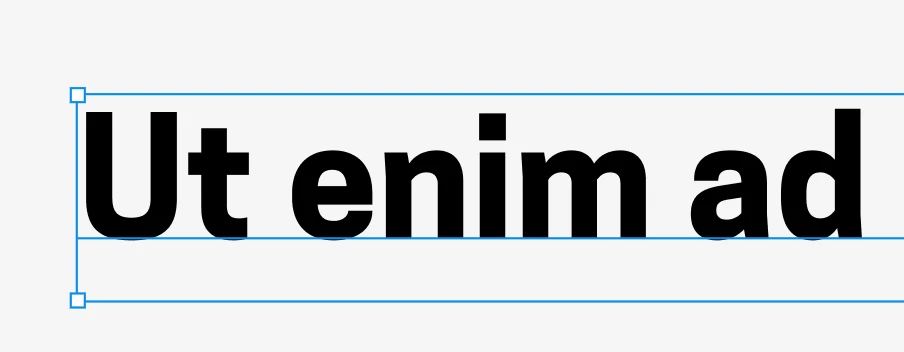
New font, different vertical metrics - how would you handle it?
I’m working on an app where at the last minute the font was changed. It was easy to swap… only the new font (Cooper Hewitt) has a wildly different vertical placement in the bounding box. See how it aligns close to the top:
For the app launch for dev this was a relatively easy solve, as you can adjust the vertical alignment. But moving forward with the project I could really do with the Figma designs not all looking misaligned!
Vertical trim seems the only option. But the paddings within my components were based off of the previous untrimmed font. Which means I would need new spacing measurements, which is bad as then the devs would need to redo all those, or ignore my new measurements. Not great outcomes for a continuing project.
I’ve been considering using a font editor to manually adjust the vertical metrics solely for use in Figma. I don’t know whether that’s legal or possible!
Has anyone had a similar experience? Or do you guys have suggestions on how you would handle this conundrum?